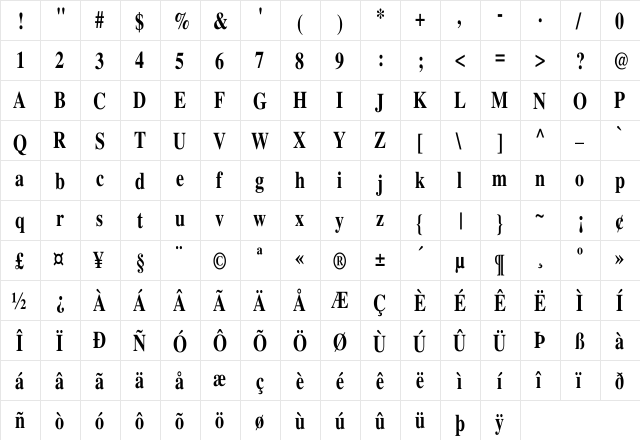
Times-Bold Cn Regular
Design Context for Times-Bold Cn Typeface
Times-Bold Cn takes a measured approach to typography — its balanced proportions and neutral character make it a reliable workhorse for both digital and print work. Its bold stroke weight gives it real presence on the page.